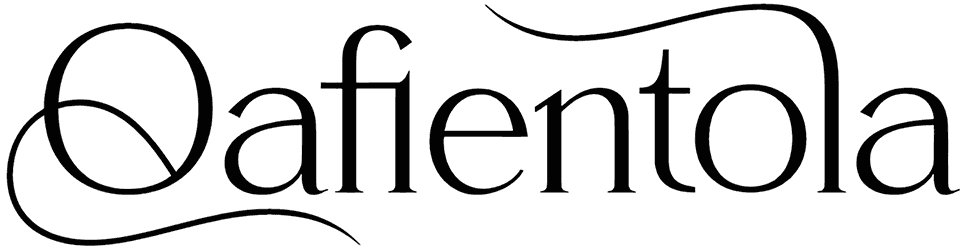
Bosky Evanish Font
With Bosky Evanish, you’ll have no reason to worry about your text not being luxurious enough. You can always make up for all the sophistication missing from your art with a ligature font like this.
So, in case you’re asked to deliver a fine piece of graphics, such as a perfume brand logo, home décor business promotion, event planning services website, and so on, this superb sans serif font can do you a great favor for sure.